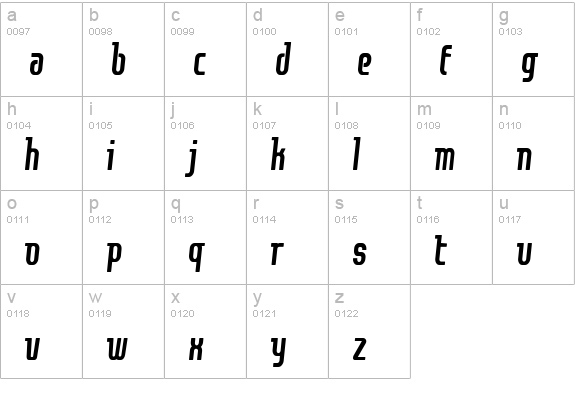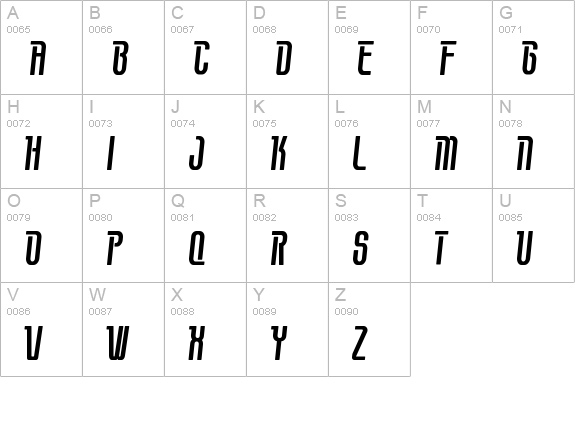
Contact font is a stylish and modern typeface that combines elegance with readability. With its clean lines and sleek curves, Contact font is perfect for a wide range of design projects, from branding to advertising to web design. This versatile font is available in multiple weights and styles, making it ideal for creating eye-catching headlines or elegant body text. And the best part? Contact font is completely free to download at FontsMarket.com! That's right, you can add this beautiful font to your collection without spending a penny. So why wait? Elevate your designs with Contact font today and let your creativity shine.